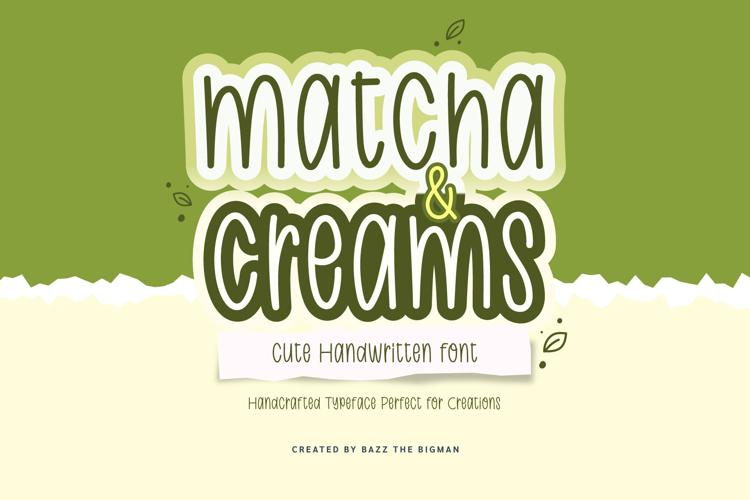
Introducing Matcha & Creams, a delicately crafted handwritten font, skillfully designed for digital planning enthusiasts, Goodnotes aficionados, and iPad note-takers. Crafted with charm, it is also ideal for crafting an endearing bakery and café branding. Encapsulating the soothing comfort of a matcha latte, the allure of homemade pastries, and the tranquil beginning of slow living mornings – its warmth and creaminess radiate onto your pages, creating an inviting and homely feel.